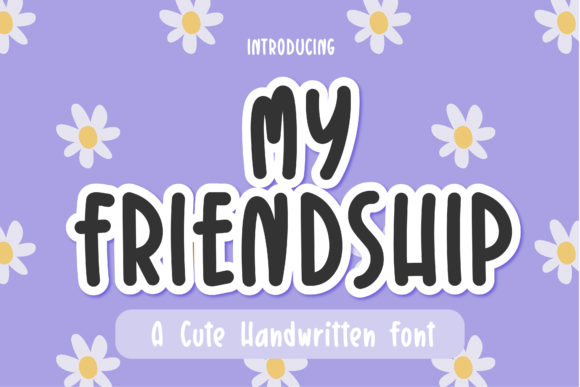
Meet "My Friendship" Font - The Perfect Script for Your Creative Endeavors
Unleash your creativity with "My Friendship" Font, the enchanting handwritten typeface that adds a touch of charm and elegance to your designs. Its playful and bouncy nature is sure to captivate your audience, leaving a lasting impression.
With "My Friendship" Font, your projects will radiate warmth and authenticity. Its carefully crafted characters bring a human touch to your designs, whether it's a heartfelt wedding invitation, a sincere thank-you card, or a motivational quote.
This versatile script font is a perfect match for a wide range of design projects. Add a personal touch to your logos and business cards, making them stand out from the crowd. Experiment with "My Friendship" Font on greeting cards, invitations, and product labels, creating designs that resonate with your customers on a deeper level.
"My Friendship" Font is more than just a font; it's an experience. It evokes emotions, sparks joy, and leaves a lasting impression. Your designs will come alive with its enchanting style, captivating your audience and leaving them yearning for more.
Elevate your designs to new heights with "My Friendship" Font. Its stunning aesthetics and emotional appeal will make your projects shine, leaving a lasting impact on your audience. Embrace the power of handwritten charm and let "My Friendship" Font be your creative companion.